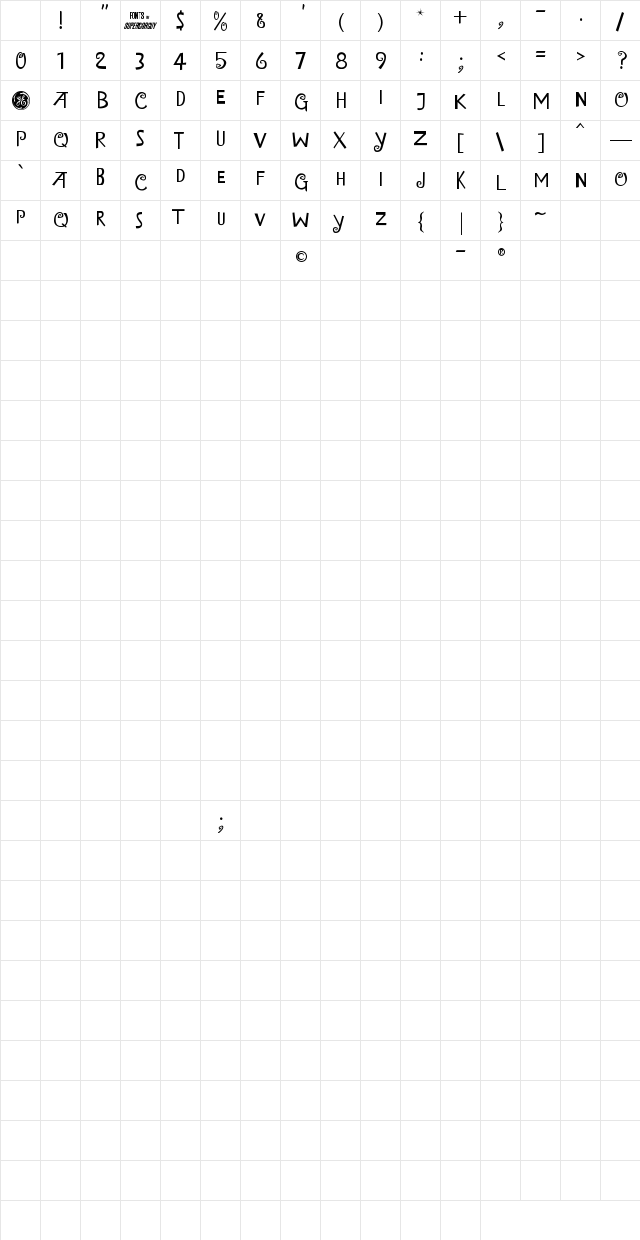
Island of Misfit Toys Regular Free Font
Island of Misfit Toys Regular
Designer: Supercarguy
Complete Island of Misfit Toys Regular glyph index. Displaying only characters natively supported by Island of Misfit Toys Regular font.
Design Context for Island of Misfit Toys
Island of Misfit Toys is a composed and adaptable typeface that performs quietly and consistently across a wide range of design contexts.